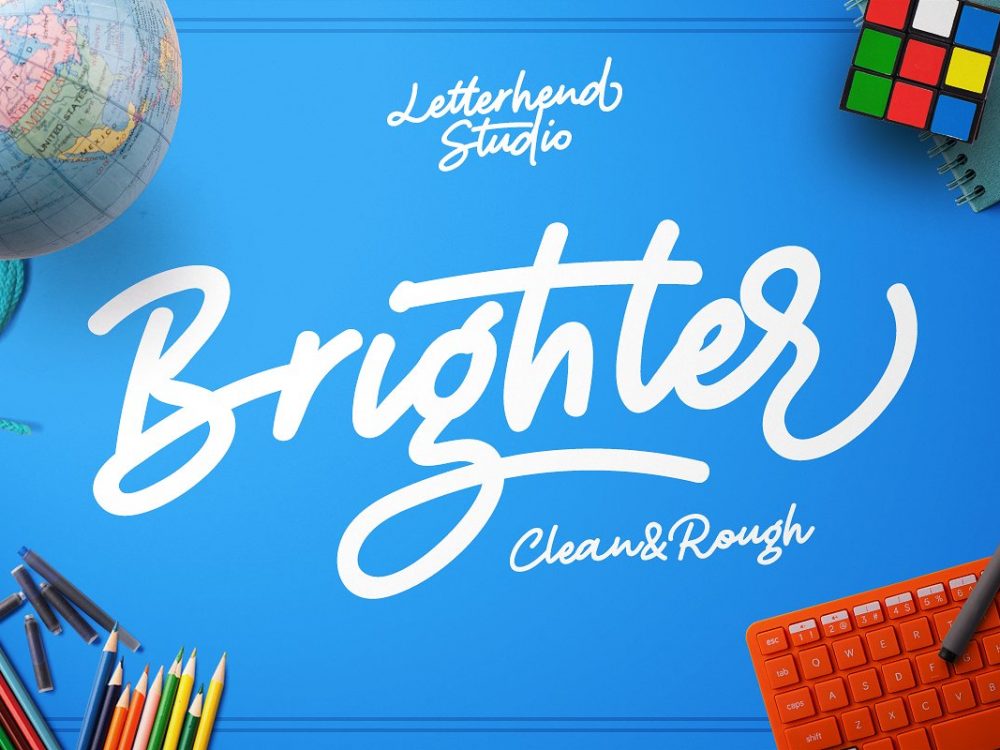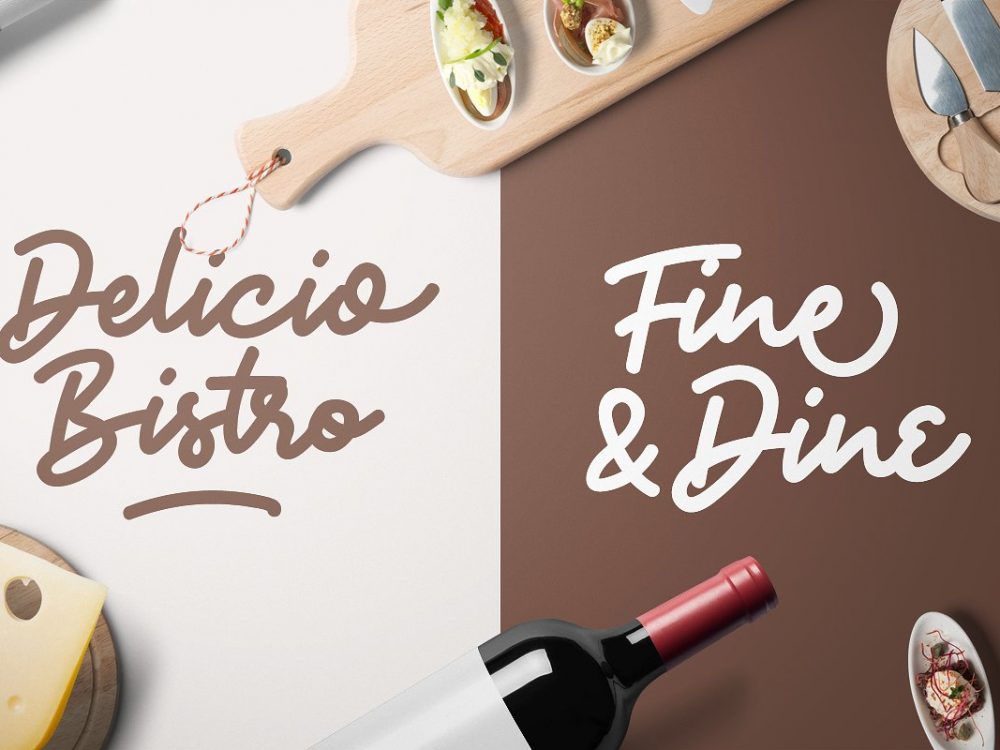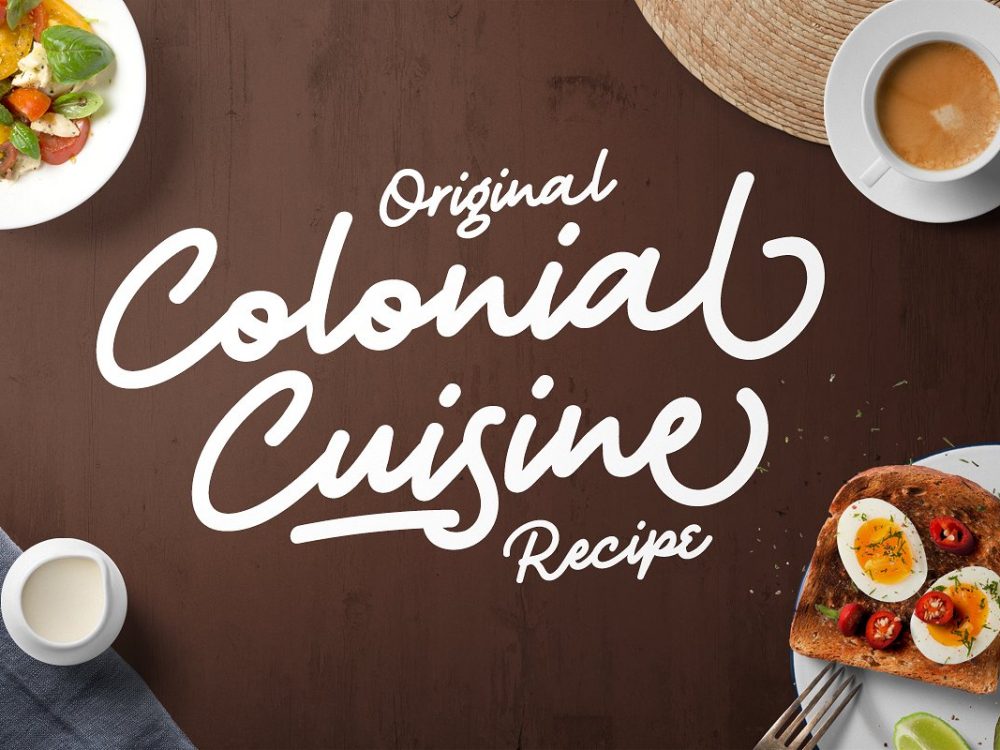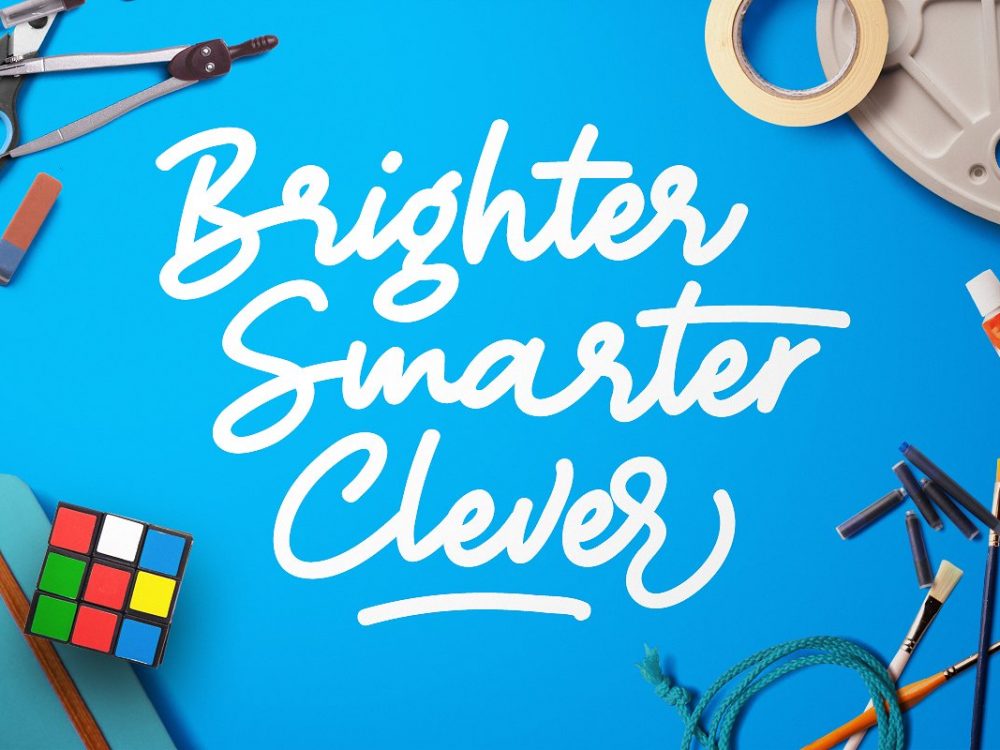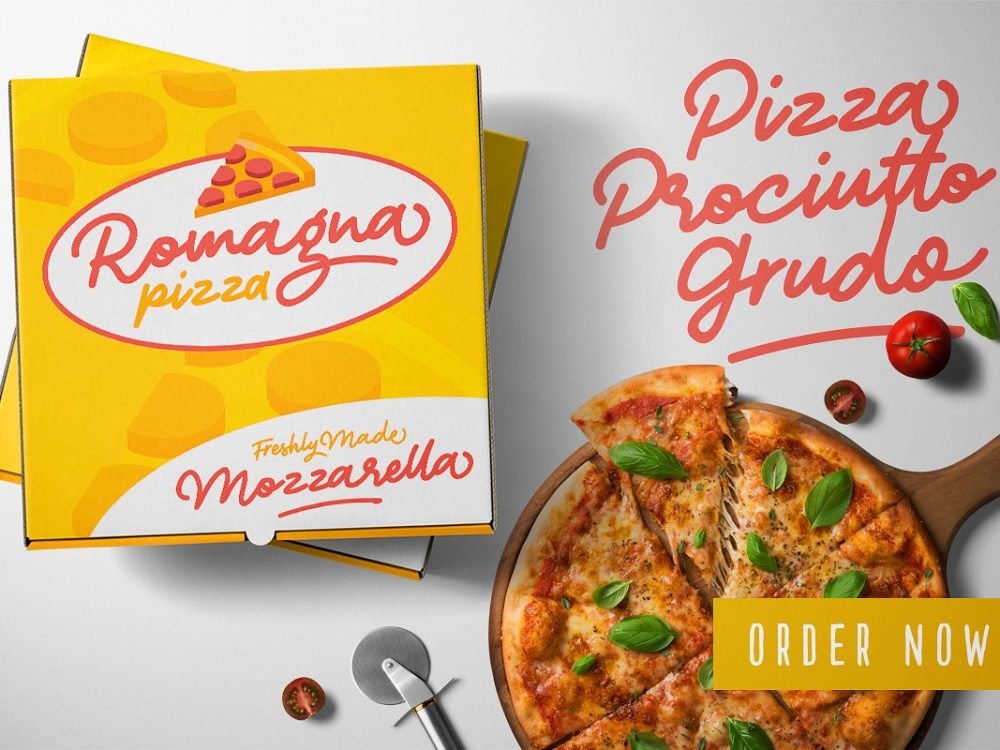
Brighter Free Font
Brighter Free Font is a stylish handwritten font. Brighter Free Font consists of two types, regular and rough. This font will help you create unique design projects and enhance your professional level. Use this font to create memorable posters, wedding invitations, cards, branding, flyers, and more. Improve the quality and increase the popularity of your design projects using this font. If you like it don’t forget to check out the full version.
Rough Font